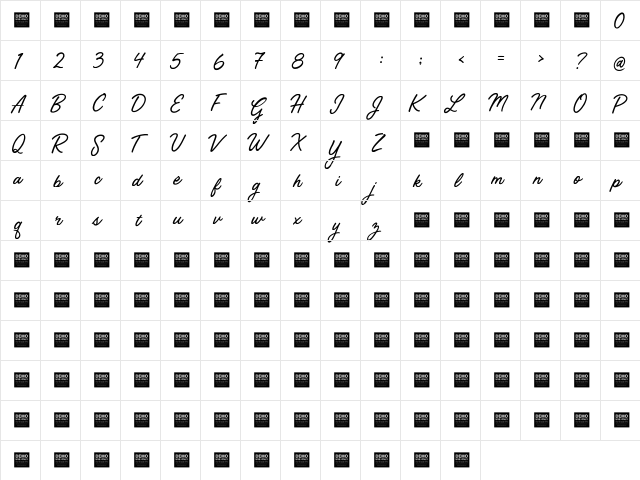
Street Magic - Demo Regular
Design Context for Street Magic - Demo Typeface
Street Magic - Demo is a composed and adaptable typeface that performs quietly and consistently across a wide range of design contexts.